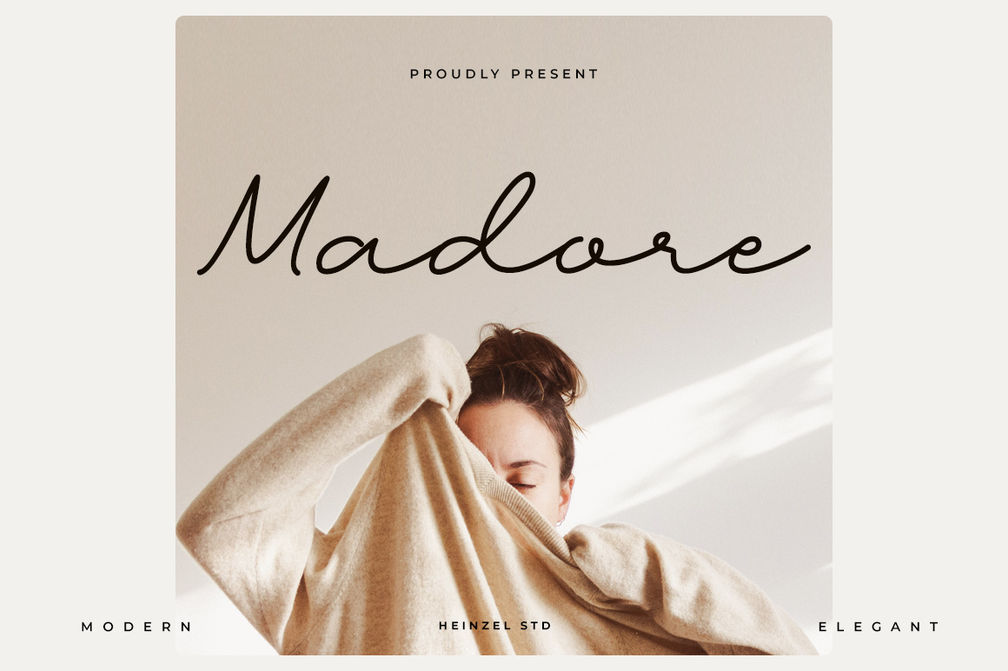
Madore Handwritten Font
Madore is an elegant, flowing handwritten script font. It maintains its classy calligraphic influences while feeling contemporary and fresh. This versatility will appeal to a wide range of crafty ideas, from letterheads and titles, to stationery.